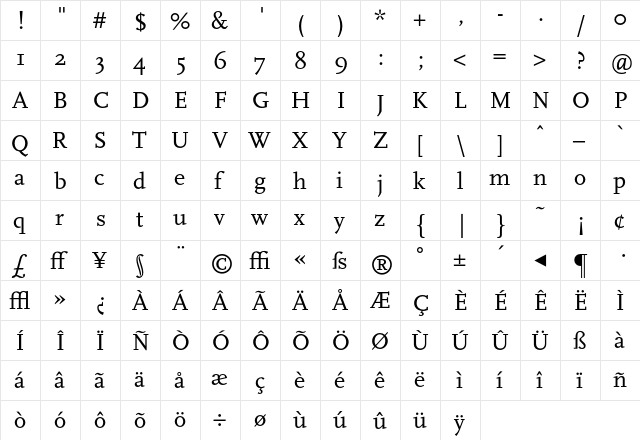
Cscala Regular Font Preview
Cscala Regular
Cscala Regular Font Details
Design Context for Cscala Typeface
Cscala offers clean, dependable letterforms without strong stylistic allegiance, making it a practical choice for designers who need flexibility.